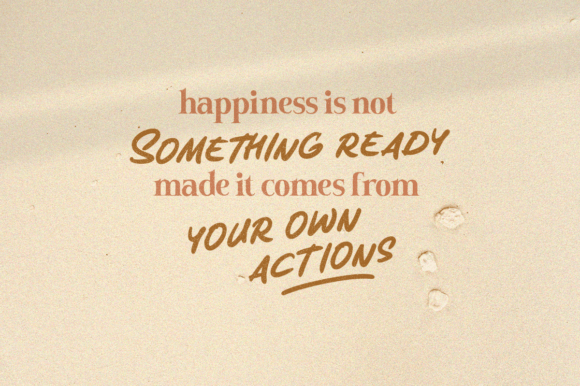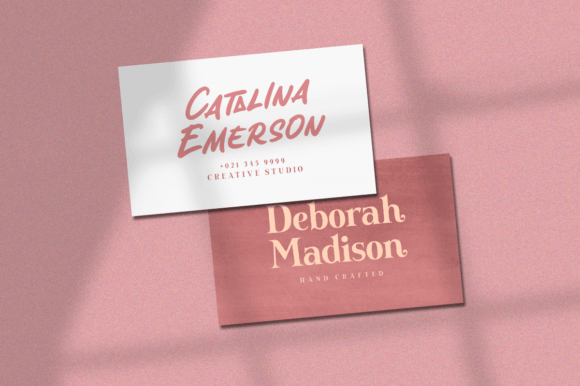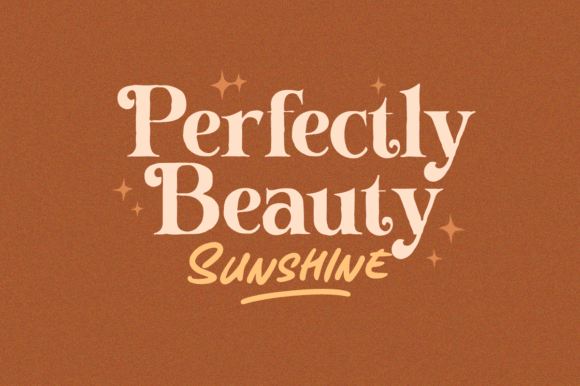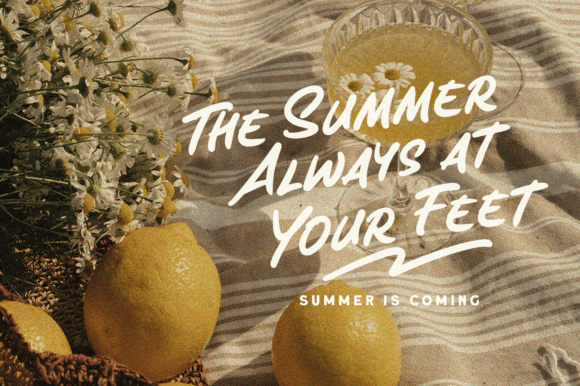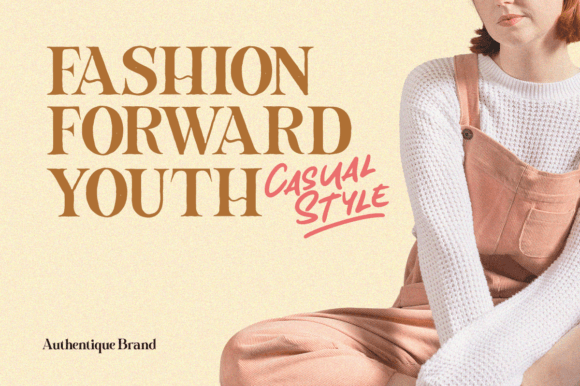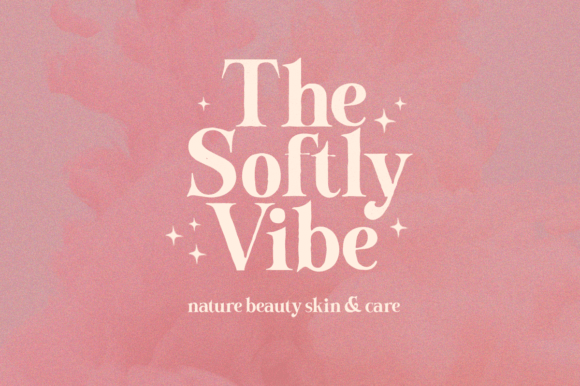
Introduction to Melina Davidson Font
Have you ever been stuck on a design project, desperately searching for the perfect font to make your creative vision come alive? That’s exactly what happened to us when we stumbled upon the stunning Melina Davidson Font. As designers, we know how crucial it is to have a reliable design resource that can elevate our work and leave a lasting impression.
That’s why we’re excited to share our experience with the Melina Davidson Font, a stylish serif and organic script duo package that’s designed to make a statement. With its high-quality design and transparent background, this font is perfect for logos, invitations, labels, and any other creative project that requires a touch of sophistication.
Key Features of Melina Davidson Font
- Transparent background and scalable design for versatile use
- Includes a range of characters, including uppercase and lowercase letters, numbers, and punctuation marks
- Designed to be easily readable and visually appealing on various devices and backgrounds
- Perfect for designers, artists, and individuals seeking a unique and creative design element
Honest Review: Melina Davidson Font
I recently had the chance to work with the Melina Davidson Font, and I must say it’s been a game-changer for my design projects. As a designer, I’m always on the lookout for high-quality design resources that can elevate my work.
- ✨ High-quality design that’s perfect for a variety of projects
- ✨ Transparent background makes it easy to work with
- ✨ Beautiful and elegant design that’s sure to impress
- ⚠️ Limited font sizes and styles available
- ⚠️ May not be suitable for bold or playful projects
Overall, I’m thoroughly impressed with the Melina Davidson Font. It’s a fantastic design resource that’s perfect for those looking for a high-quality, elegant font. With a little creativity, I’m sure you’ll be able to make the most of this fantastic font.
Tips for Getting the Most Out of Melina Davidson Font
Experiment with different font sizes, colors, and combinations to create a unique design. Use the font to add a touch of sophistication to your creative project. Make sure to use the font on a high-quality design resource to get the best results.
Common Use Cases for Melina Davidson Font
The Melina Davidson Font is ideal for use in creative projects such as wedding invitations, branding materials, and digital marketing campaigns. Its high-quality design and transparent background make it a great choice for designers and non-designers alike.